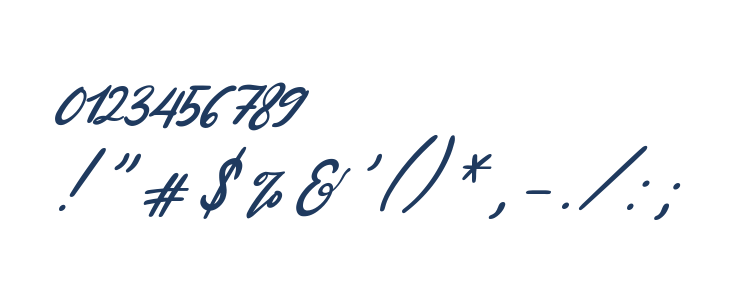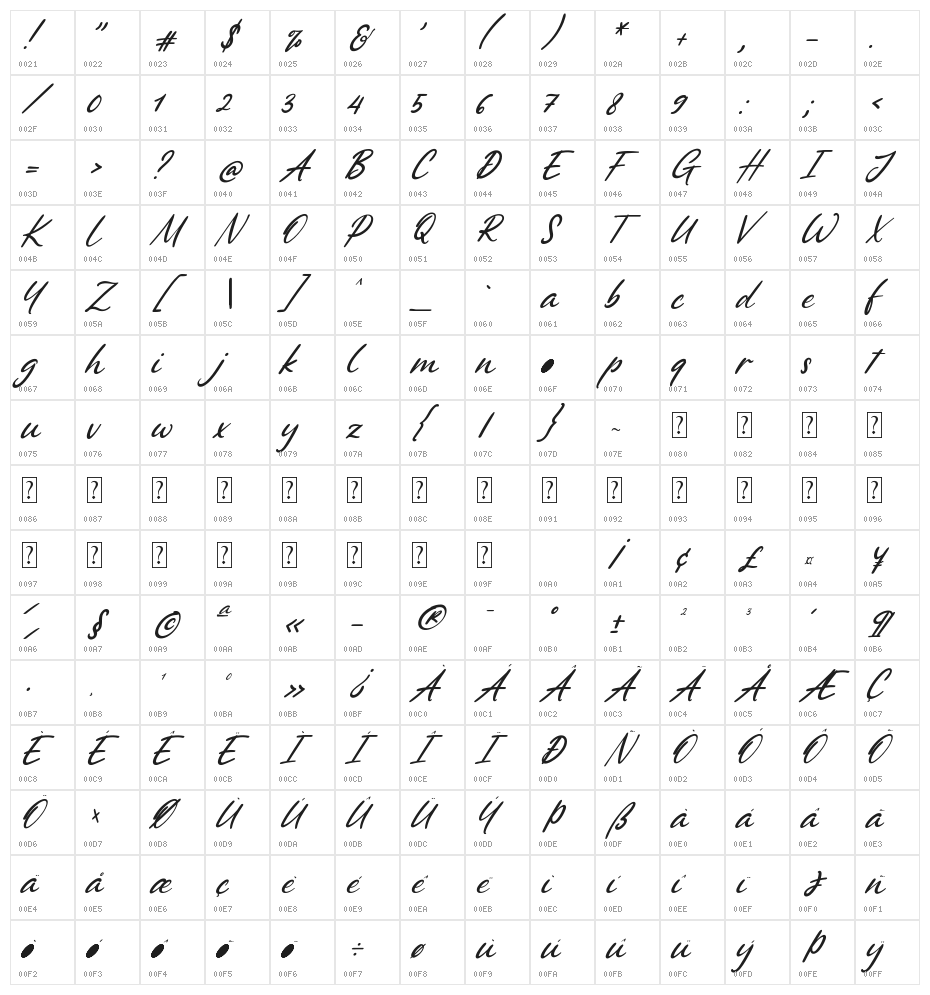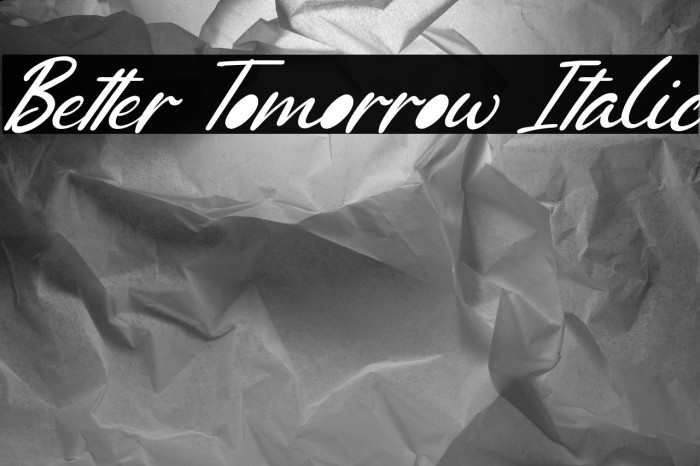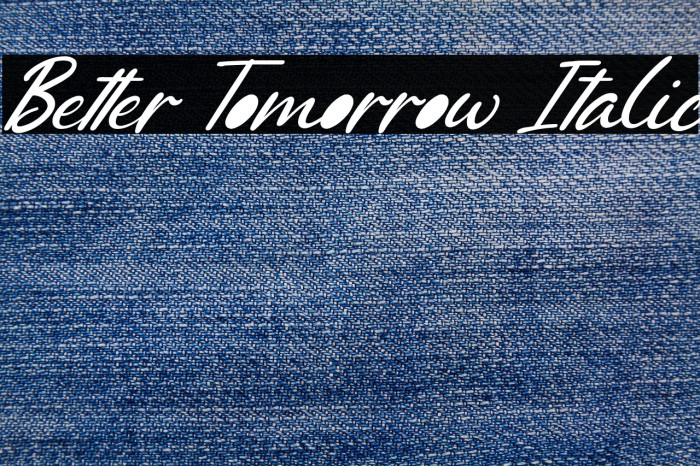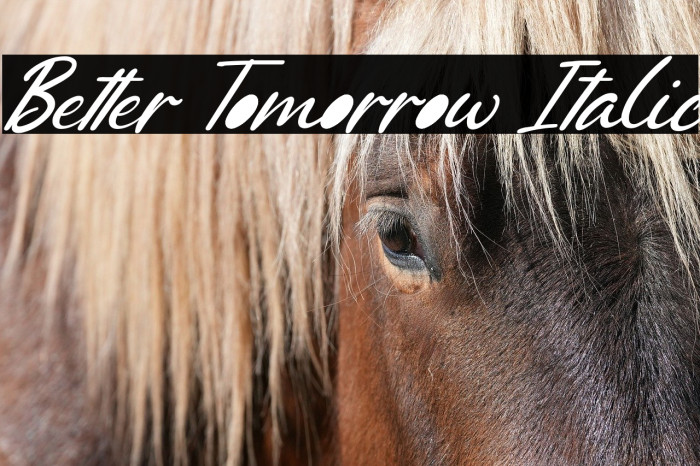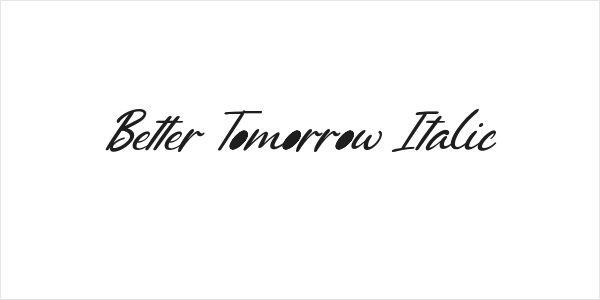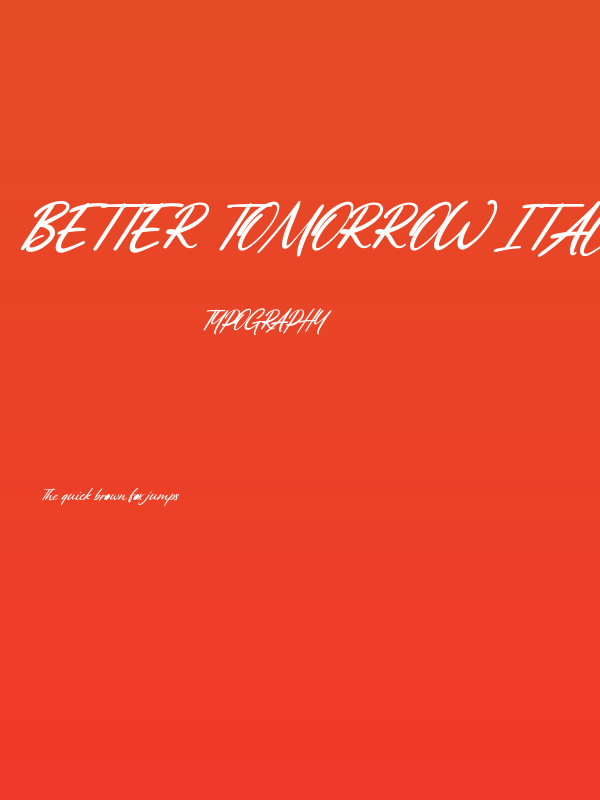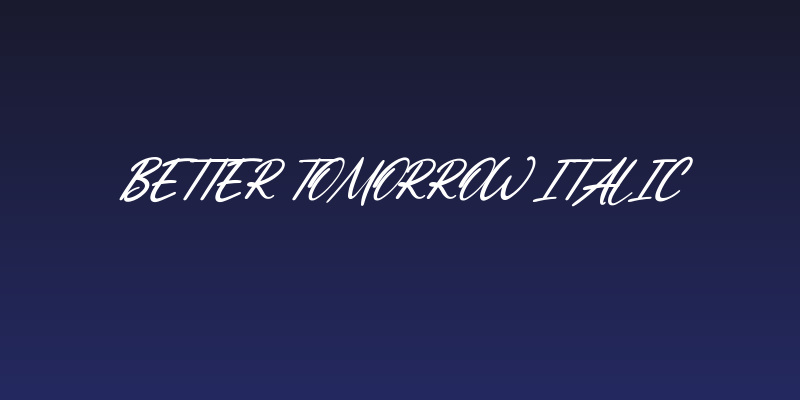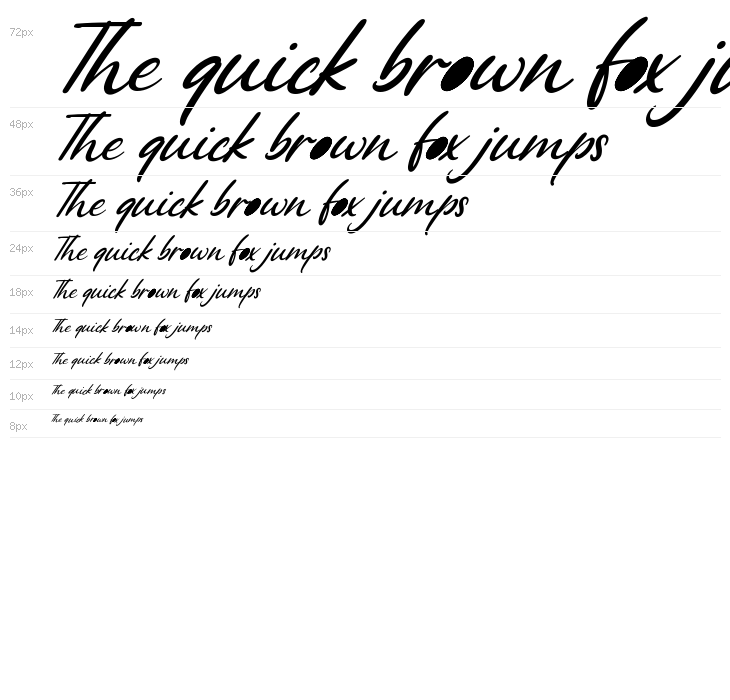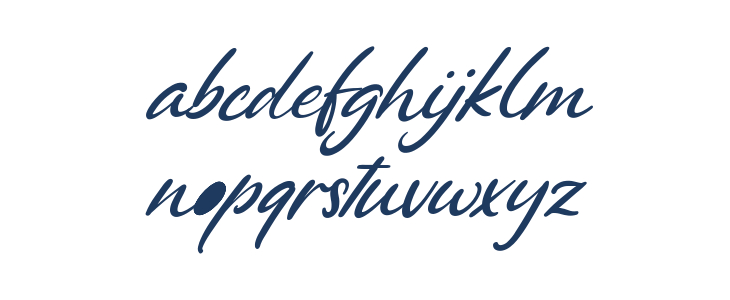
Better Tomorrow Italic Font
Better Tomorrow Italic Description
This font exudes a dynamic and fluid style, characterized by its cursive, handwritten appearance. The letters are elegantly slanted, giving a sense of motion and grace. The strokes are smooth and connected, with a consistent flow that enhances readability while maintaining an artistic flair. The uppercase letters are bold and prominent, while the lowercase letters maintain a balanced and harmonious look. Numbers and special characters are crafted with the same attention to detail, ensuring a cohesive overall design. This font is ideal for projects that require a personal touch or a sense of elegance and sophistication.
| Proposed Projects | Ideal for wedding invitations, greeting cards, personal branding, and artistic projects. |